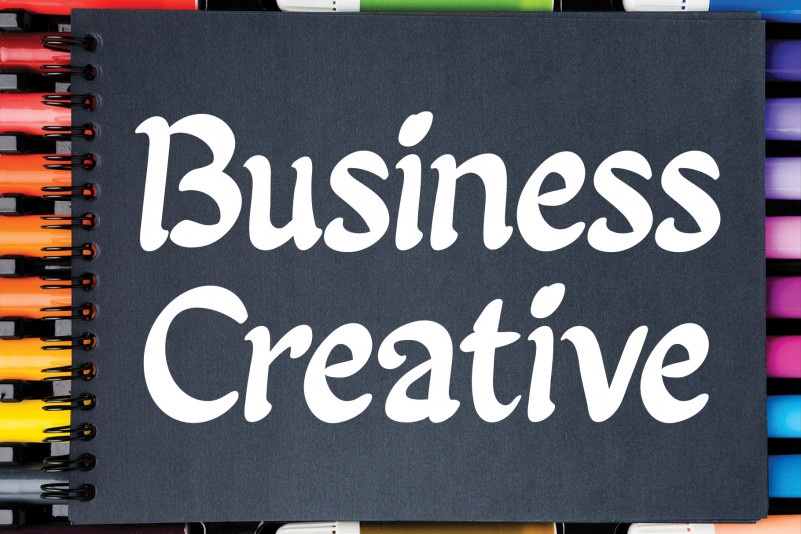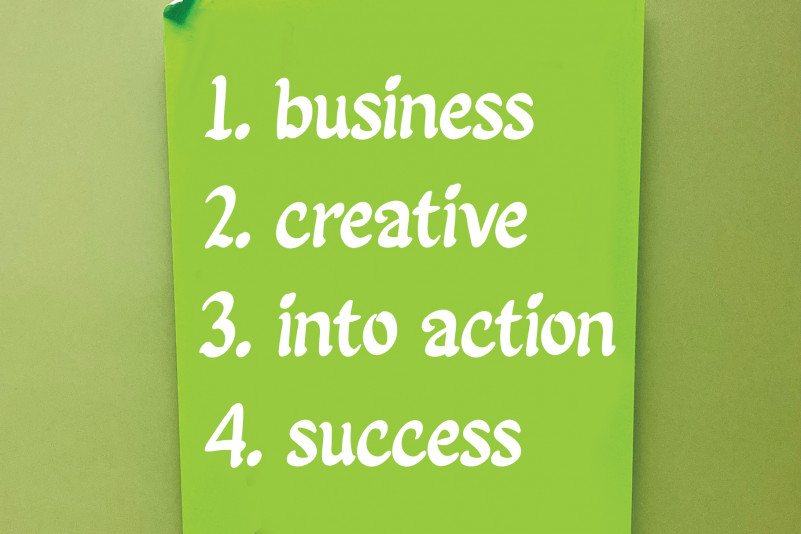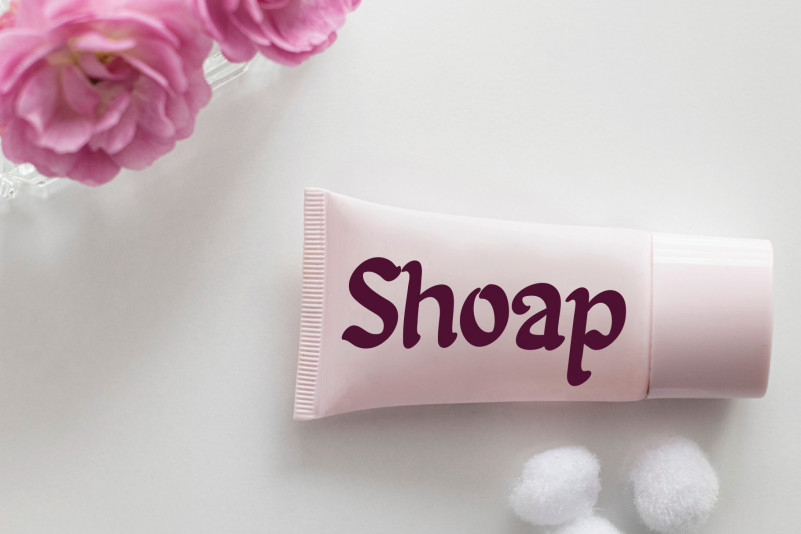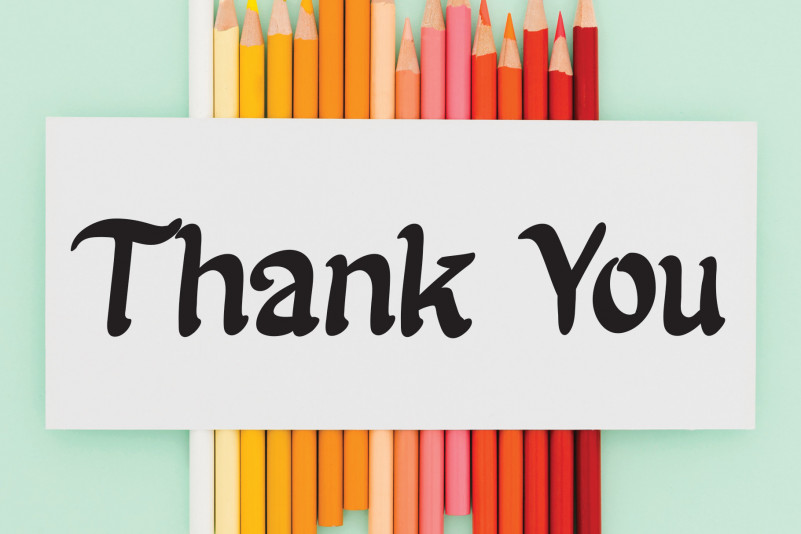
Summer Flower Script Font
Summer Flower Script Font is a stylish yet simple script font. It looks beautiful on invitations, thank you cards, quotes, greeting cards, logos, business cards and so much more!